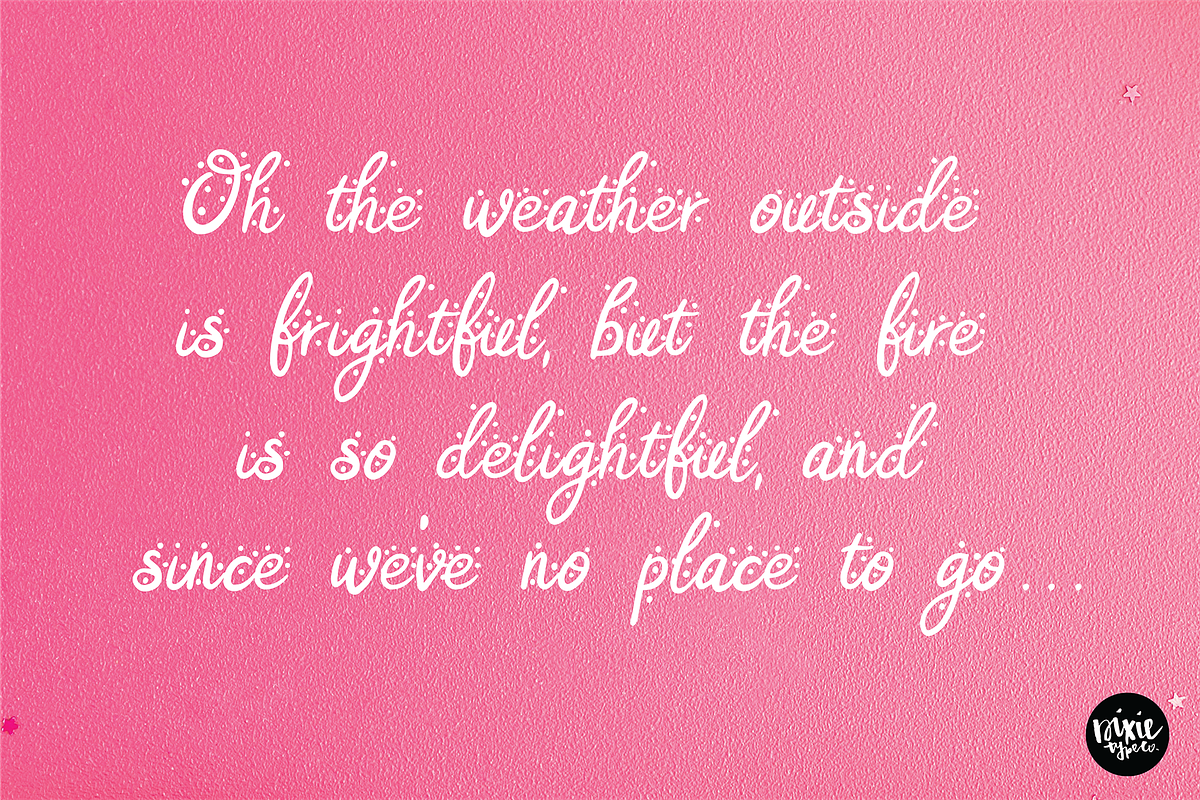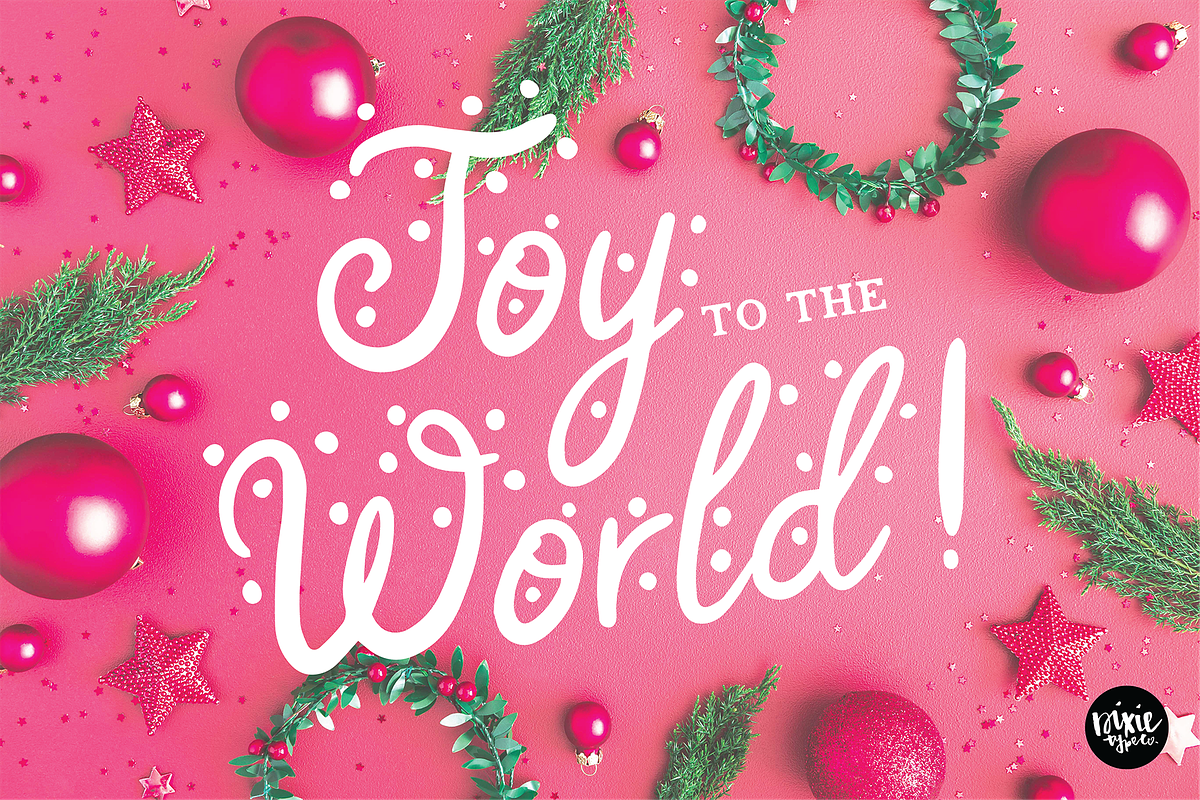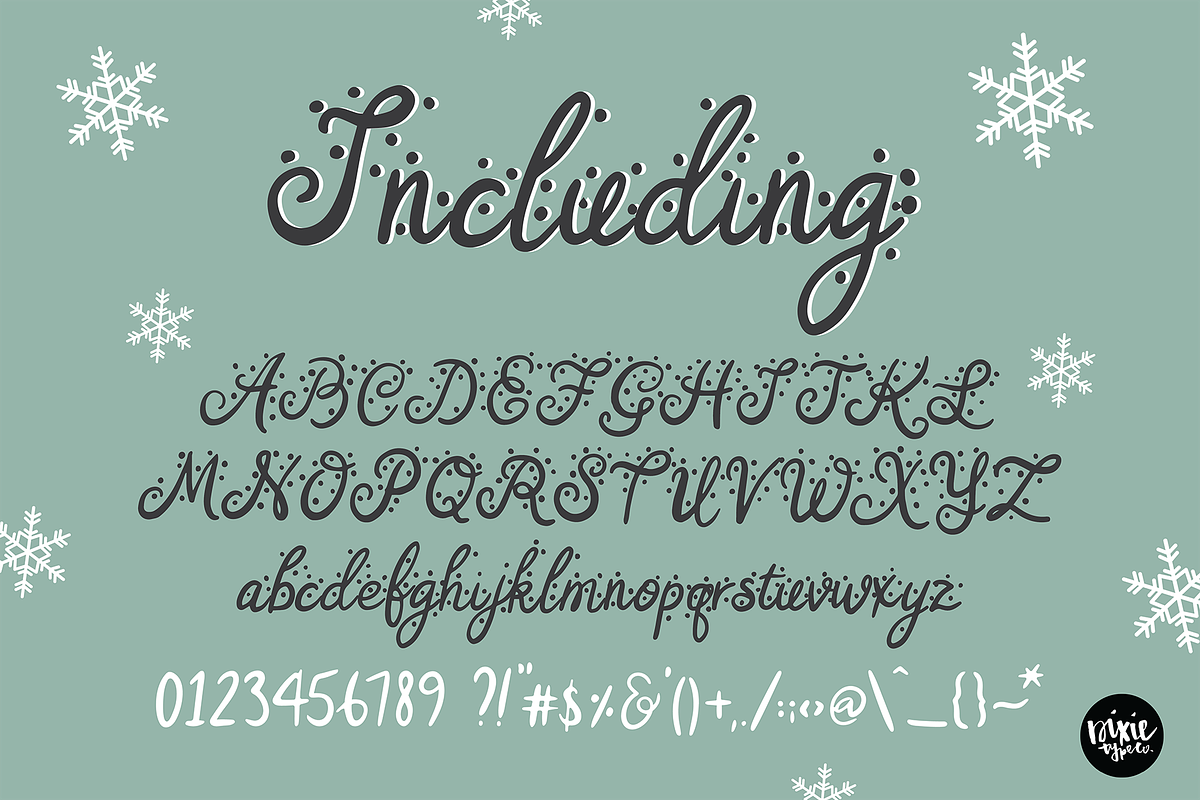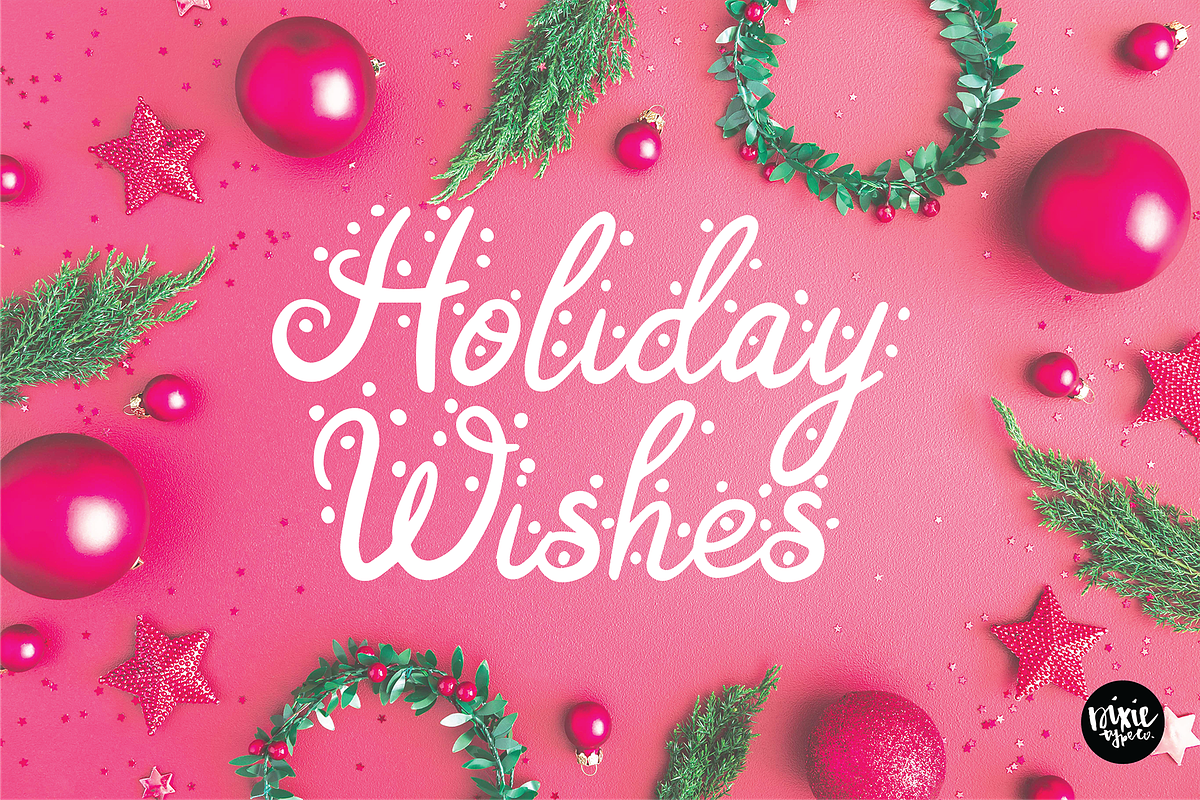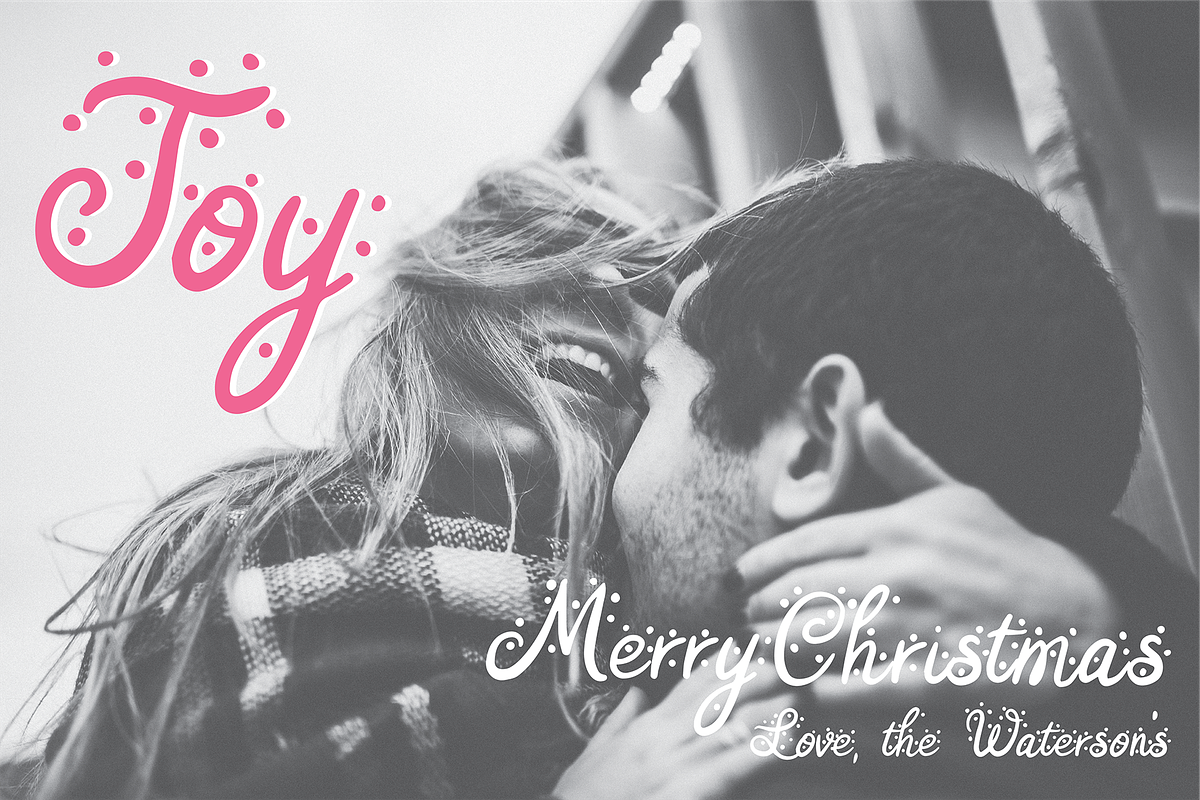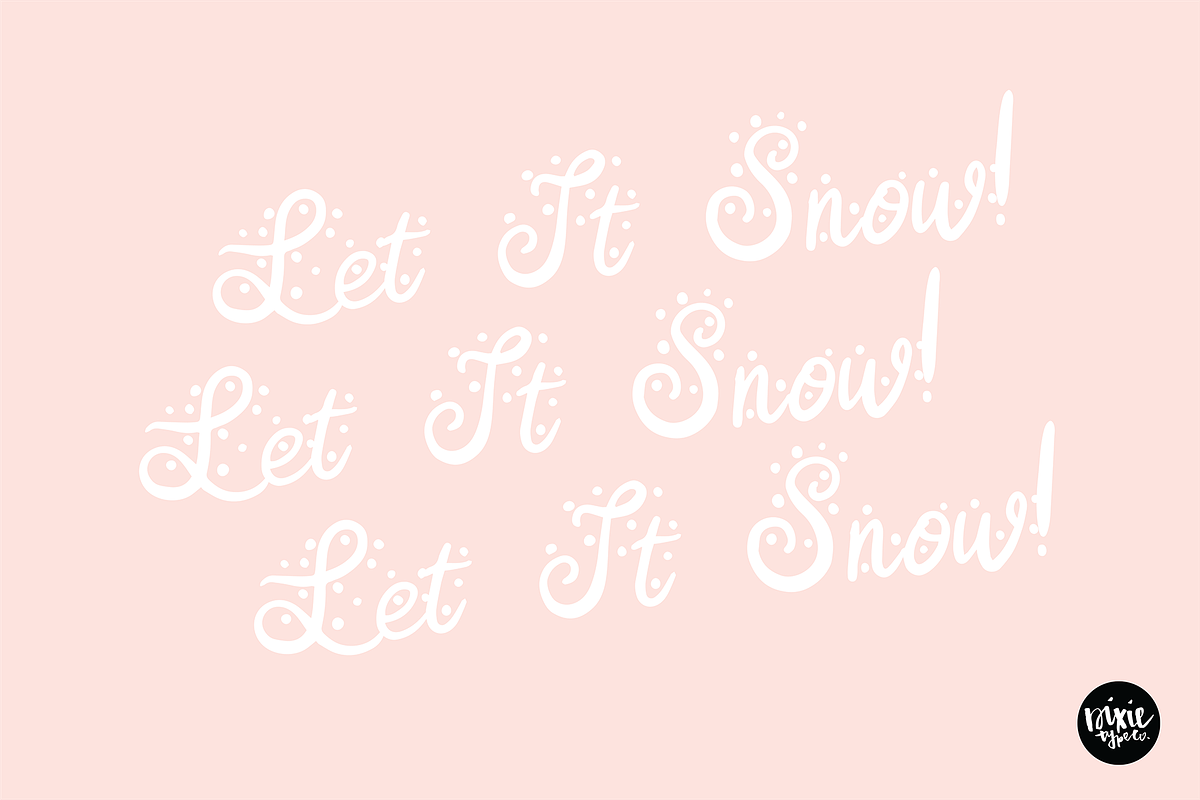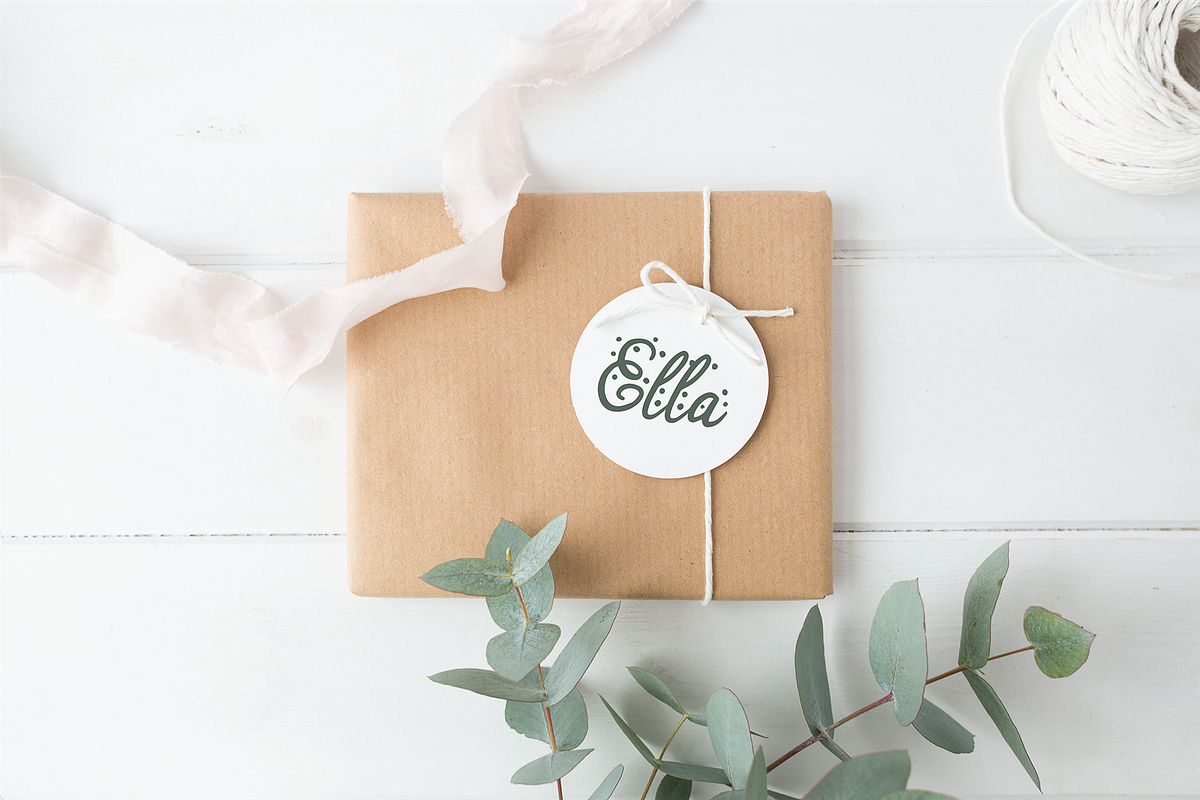
AFTERGLOW a Christmas Snow Font
"Afterglow" a decorative Christmas/Holiday font.
{ A typographic font hand lettered with love by Dixie Type Co. }
Afterglow was made for your holiday projects. The snow effect is perfect for use on Christmas cards, Christmas decor, gift tags and more! This font includes numbers and punctuation.